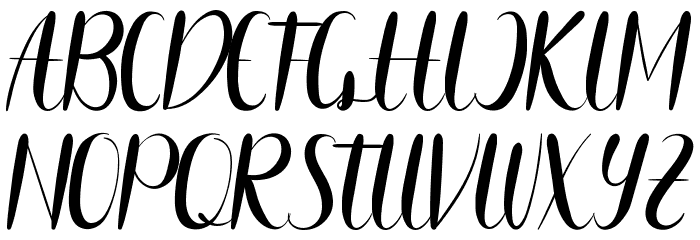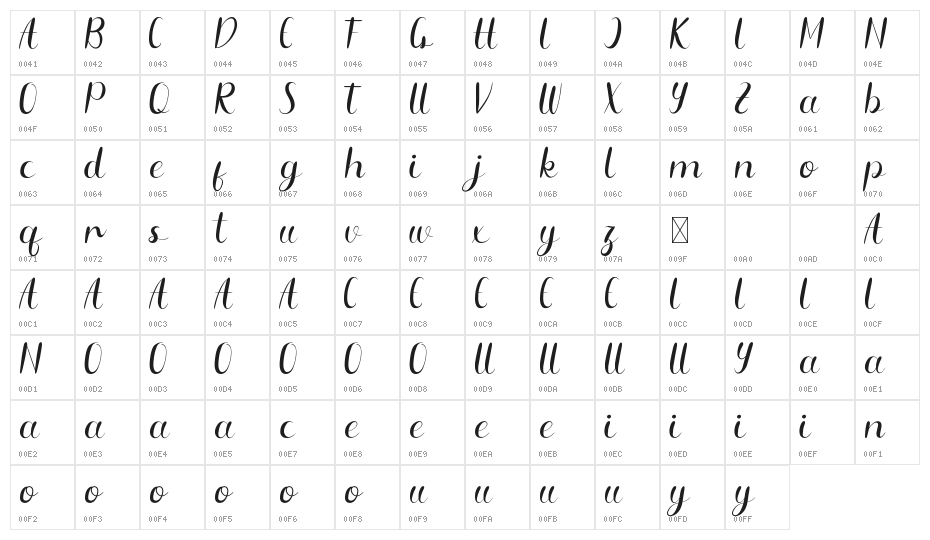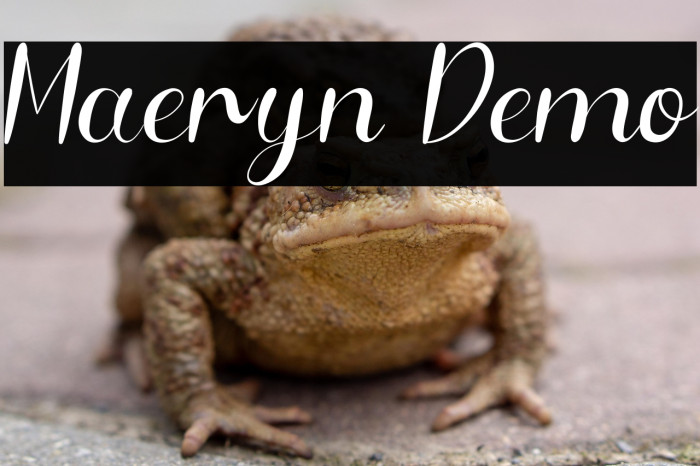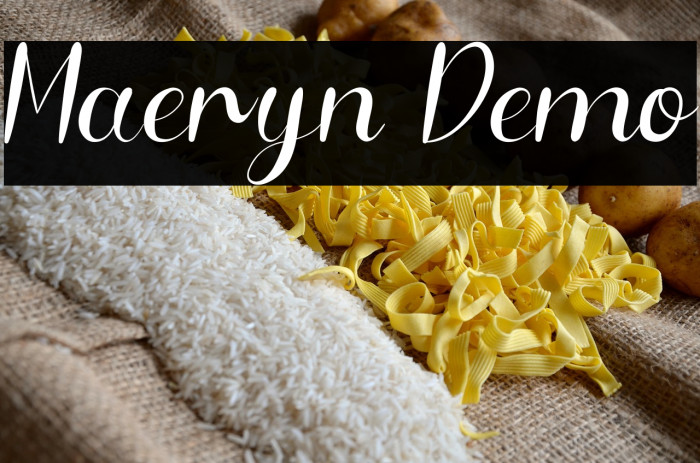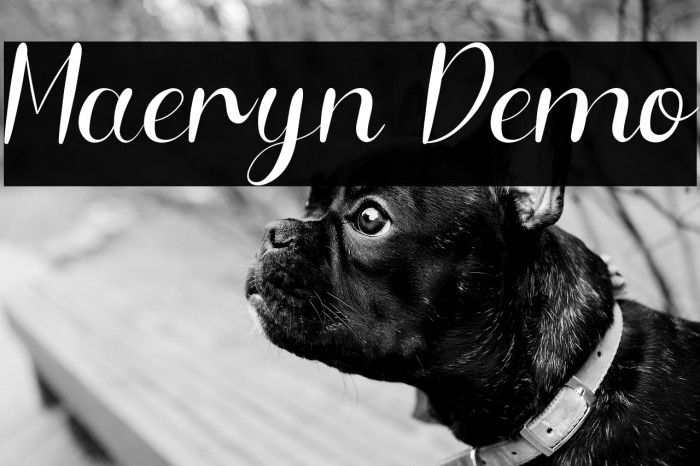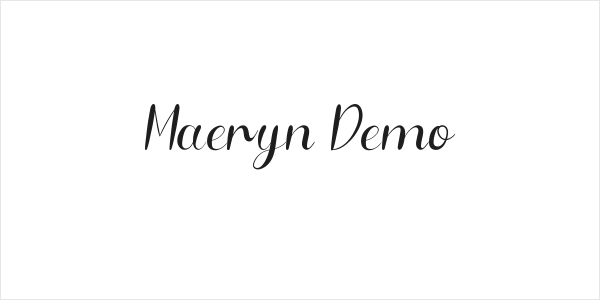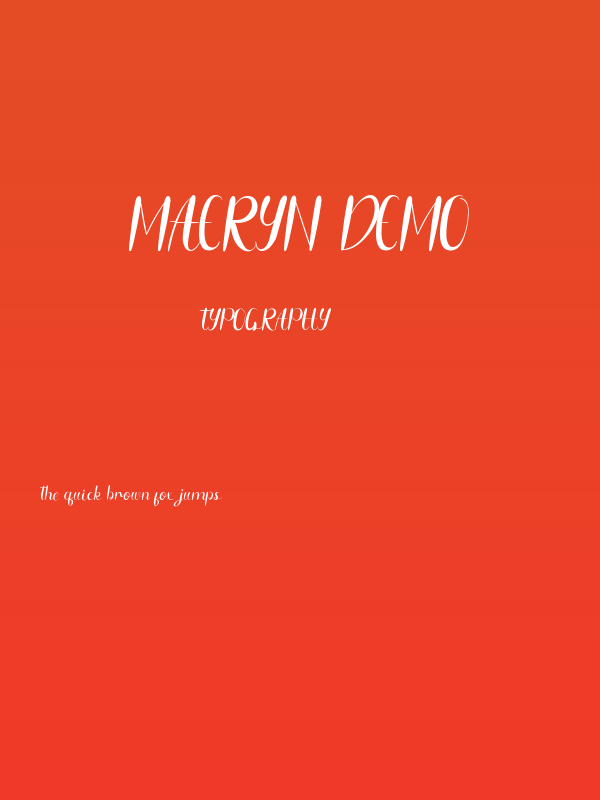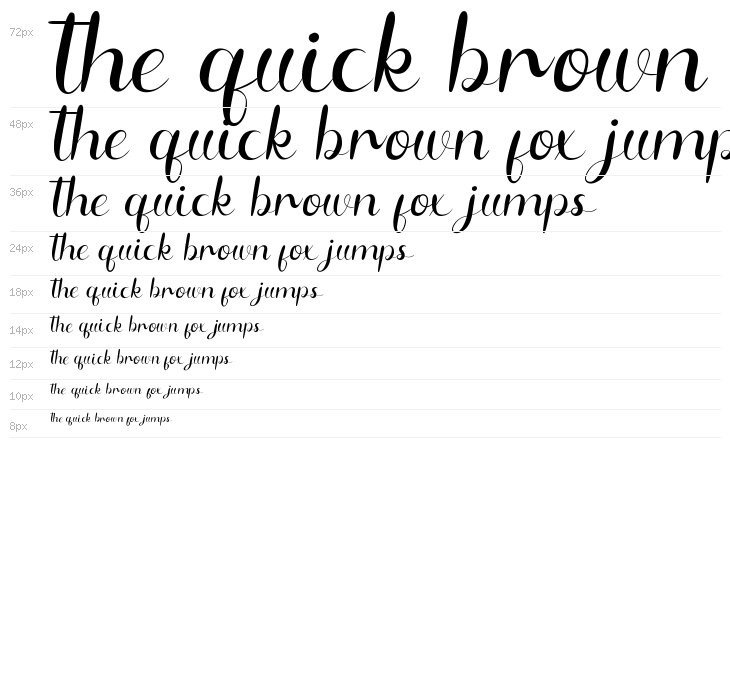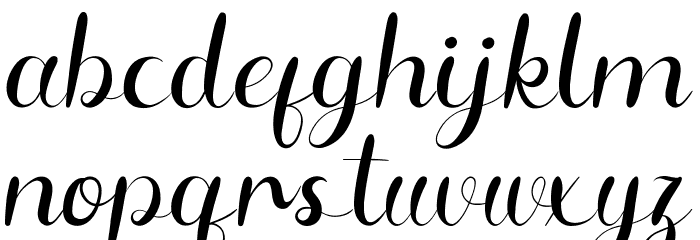
Maeryn Demo Font
Maeryn Demo Description
This elegant script font features a flowing, cursive style with a modern twist. The characters are connected with smooth, sweeping strokes that give it a graceful and sophisticated appearance. The uppercase letters are tall and slender, while the lowercase letters maintain a consistent flow, enhancing readability. The font exhibits a high contrast between thick and thin strokes, adding to its dynamic and stylish look. Its decorative nature makes it ideal for projects that require a touch of elegance and flair.
| Use Case | Logos, Invitations, Decorative text |
| Proposed Projects | Ideal for wedding invitations, greeting cards, branding, and elegant logo designs. |